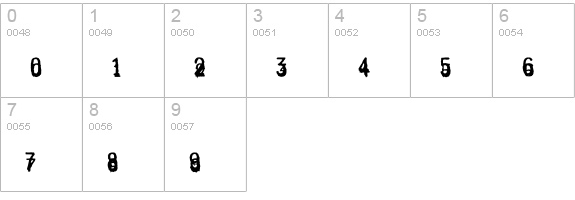
IndecisionCompressed Font Details
Introducing IndecisionCompressed, a captivating and versatile font that effortlessly combines elegance with a touch of playfulness. This font is designed to leave a lasting impression, making it the perfect choice for a wide range of creative projects. IndecisionCompressed boasts a unique compressed style that adds a sense of sophistication to any design. Its carefully crafted letterforms are meticulously designed to create a harmonious balance between legibility and artistic flair. The condensed nature of this font allows for maximum impact, making it an excellent choice for headlines, titles, and branding materials. With its wide range of weights and styles, IndecisionCompressed offers endless possibilities for customization. Whether you're aiming for a bold and impactful look or a refined and elegant aesthetic, this font has got you covered. Its versatility makes it suitable for a variety of design projects, from logos and packaging to posters and websites. One of the most exceptional features of IndecisionCompressed is that it is available free of charge. Yes, you read that right! This remarkable font can be freely downloaded at FontsMarket.com, making it accessible to designers of all levels. This means you can instantly elevate your creations without breaking the bank. So why wait? Unleash your creativity and download IndecisionCompressed today. Discover the power of this incredible font and unleash its potential in your next project. Whether you're a seasoned professional or just starting your design journey, IndecisionCompressed is a must-have addition to your font collection. Embrace its charm, versatility, and the freedom it offers, and let your designs speak volumes.